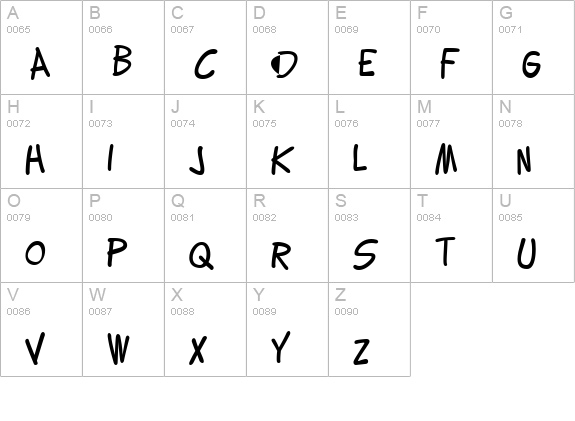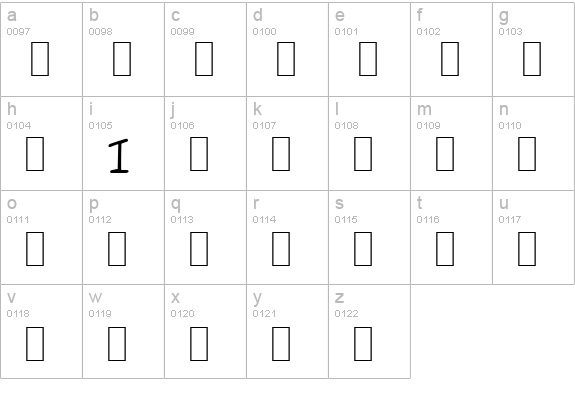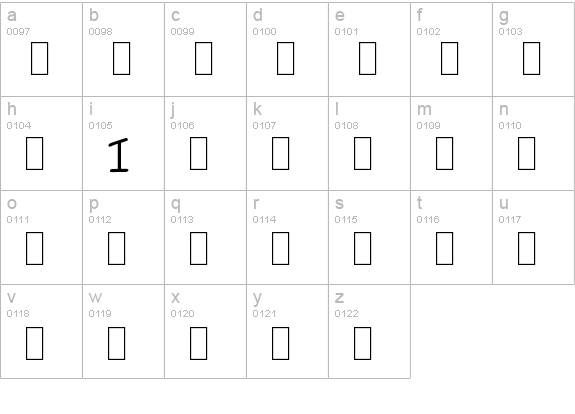
Lettering1 Weird Font Details
Introducing Lettering1 Weird font - a captivating and unconventional typeface that will make your designs stand out from the crowd. With its unique and quirky letterforms, this font adds a touch of playfulness and creativity to any project. Lettering1 Weird font is perfect for adding a touch of whimsy to your designs, whether it's for a logo, branding, posters, invitations, or social media graphics. Its unconventional style is sure to catch the eye and leave a lasting impression. What makes this font even better is that it is completely free! Yes, you read that right. Lettering1 Weird font is freely available to download at FontsMarket.com. You can enhance your designs without breaking the bank. The versatility of this font is unparalleled. It can be used for both personal and commercial projects, making it a must-have for designers, artists, and creatives alike. Its bold and expressive letterforms are designed to make a statement and leave a lasting impact on viewers. With Lettering1 Weird font, you have the freedom to experiment and explore different design possibilities. Its unique and unusual characters provide endless opportunities for creative expression. Whether you want to create a fun and playful design or a bold and edgy statement, this font has got you covered. So why wait? Download Lettering1 Weird font now and let your imagination run wild. With its free availability at FontsMarket.com, you can unleash your creativity without any limitations. Take your designs to new heights and captivate your audience with the captivating and unconventional Lettering1 Weird font.